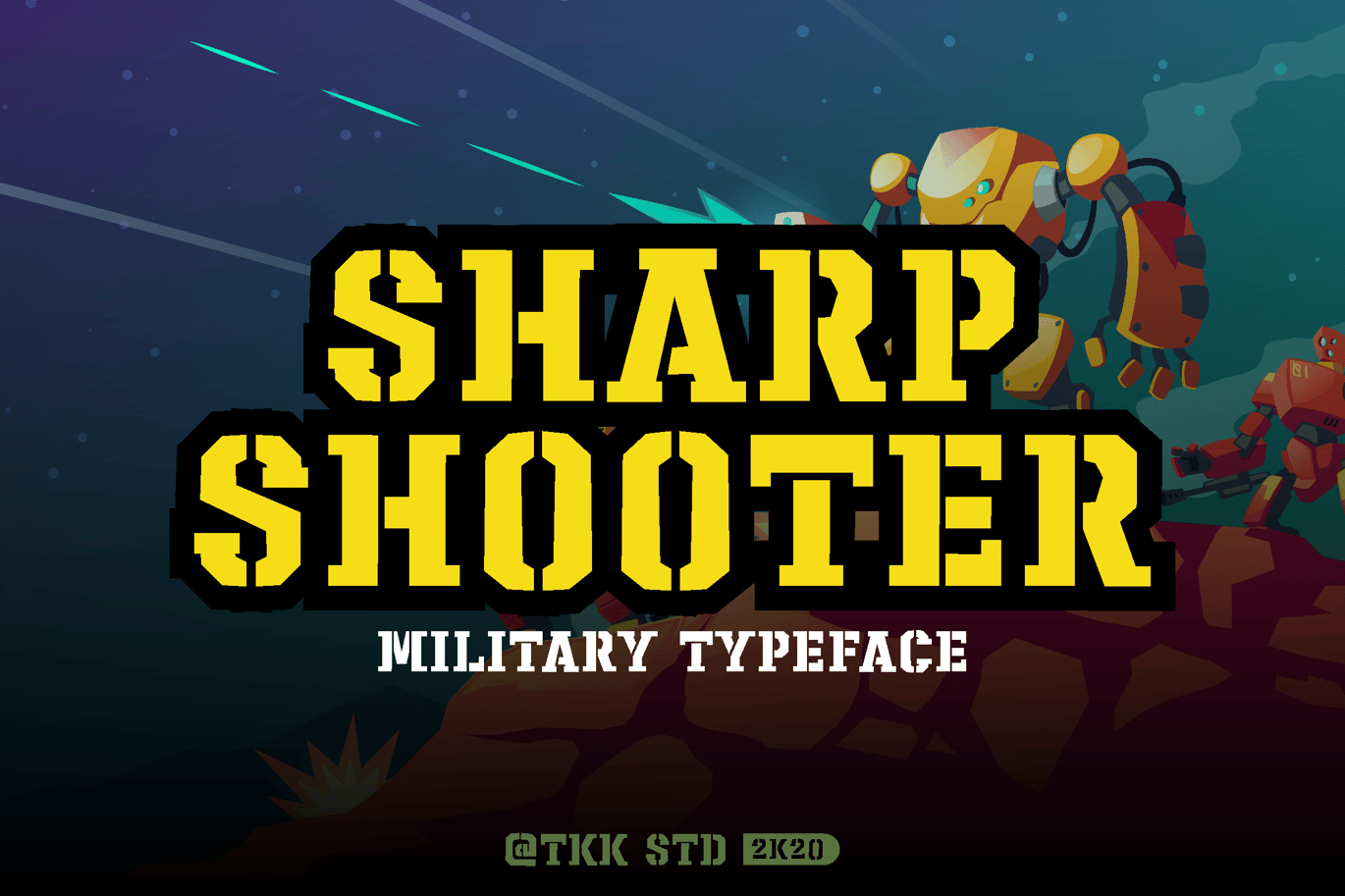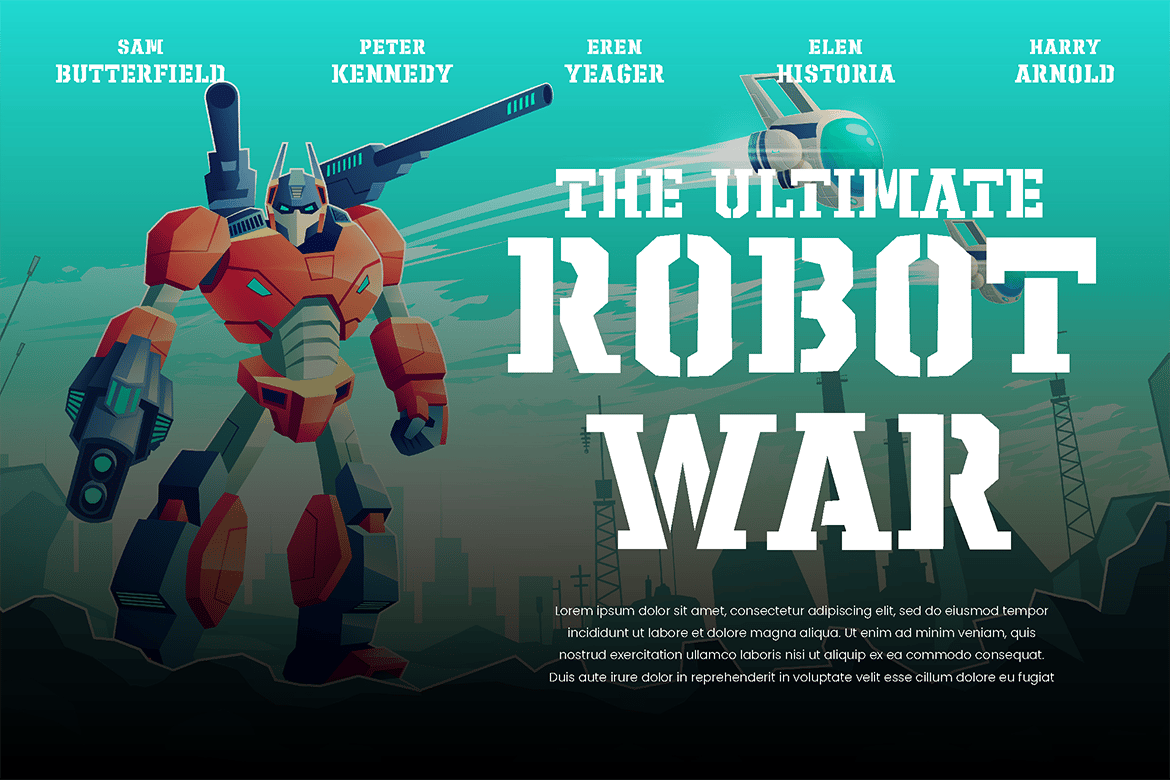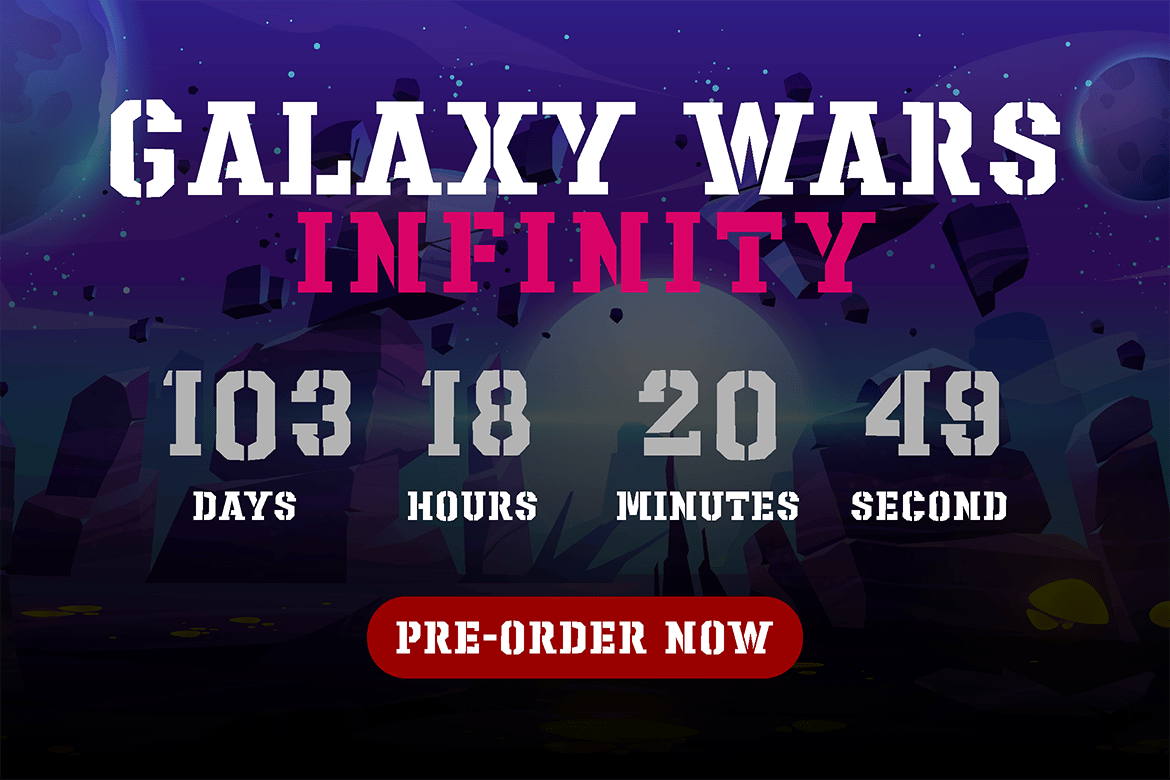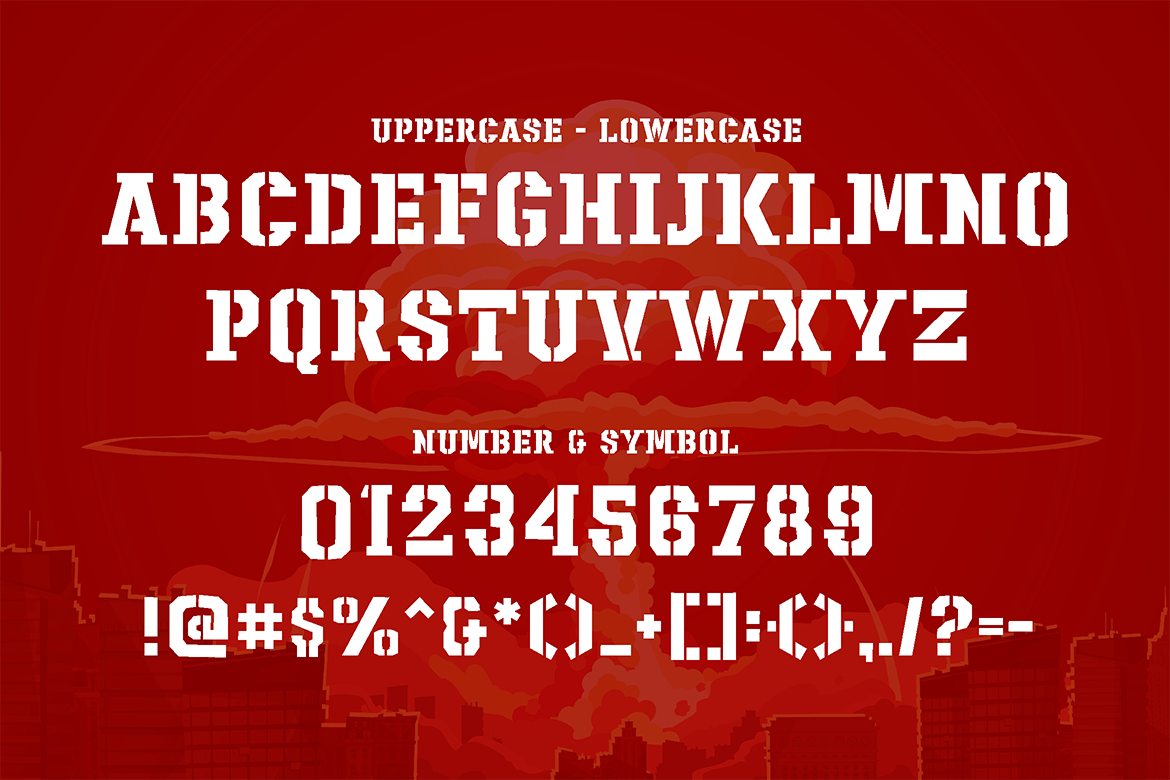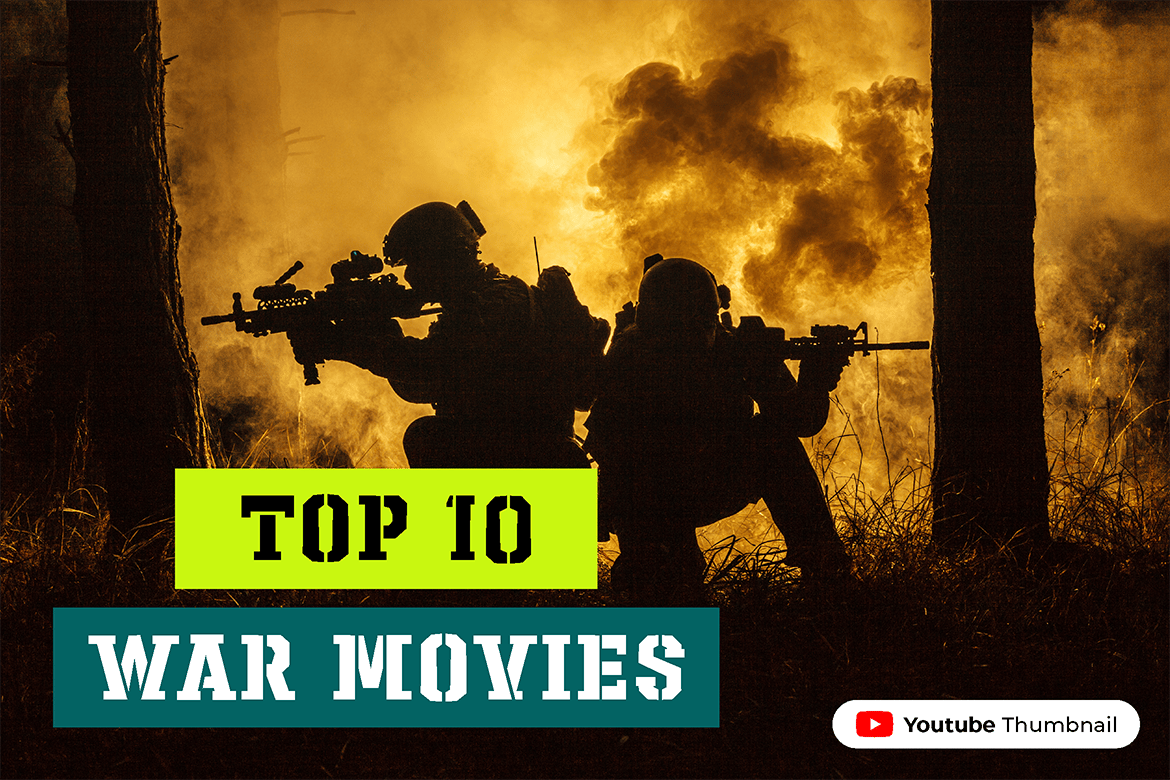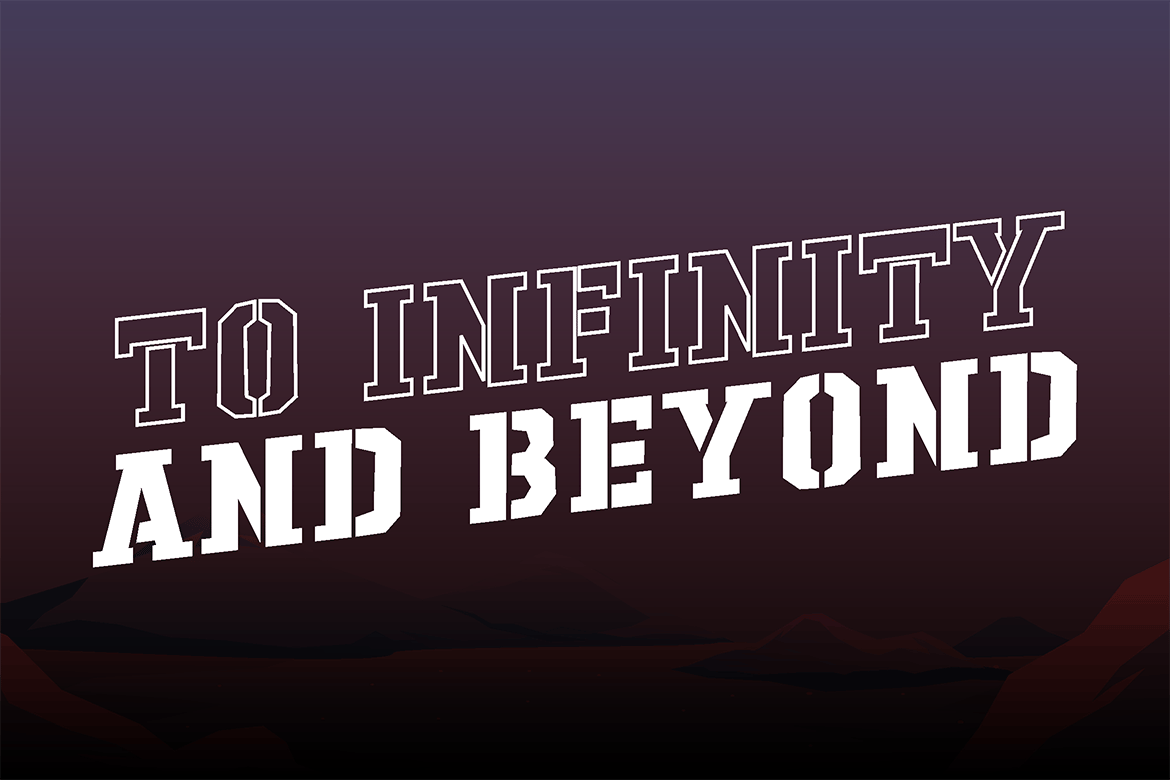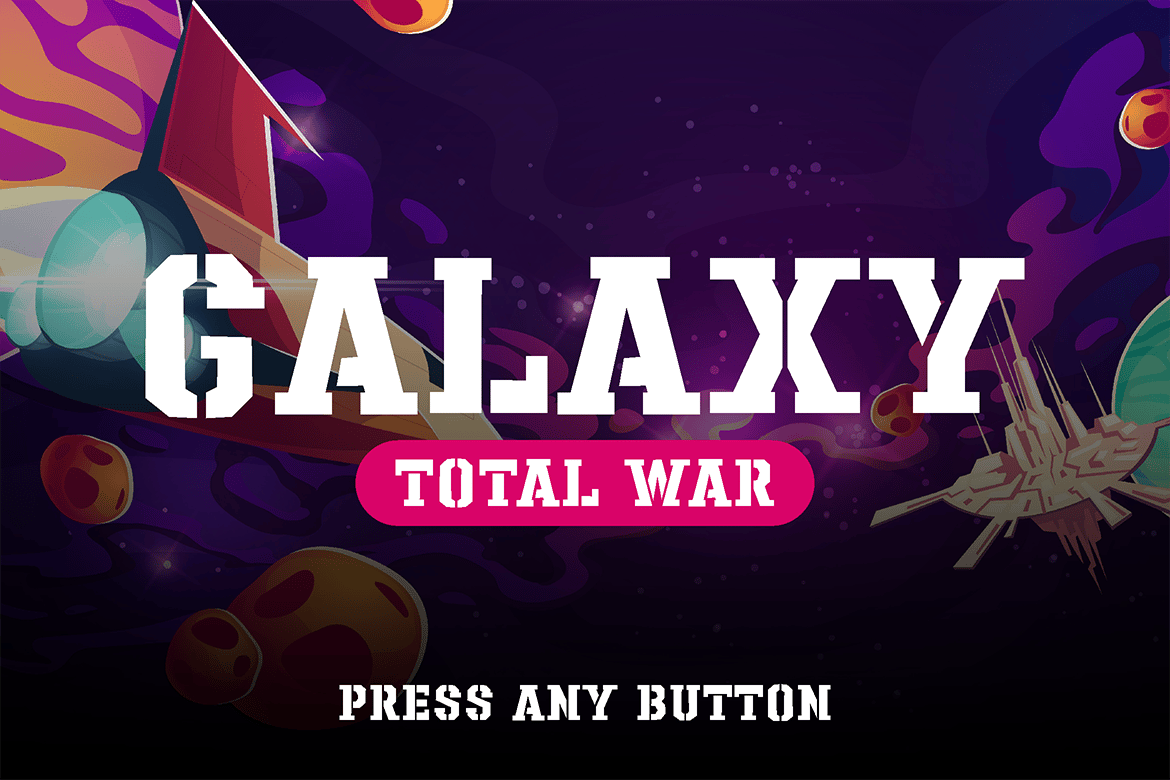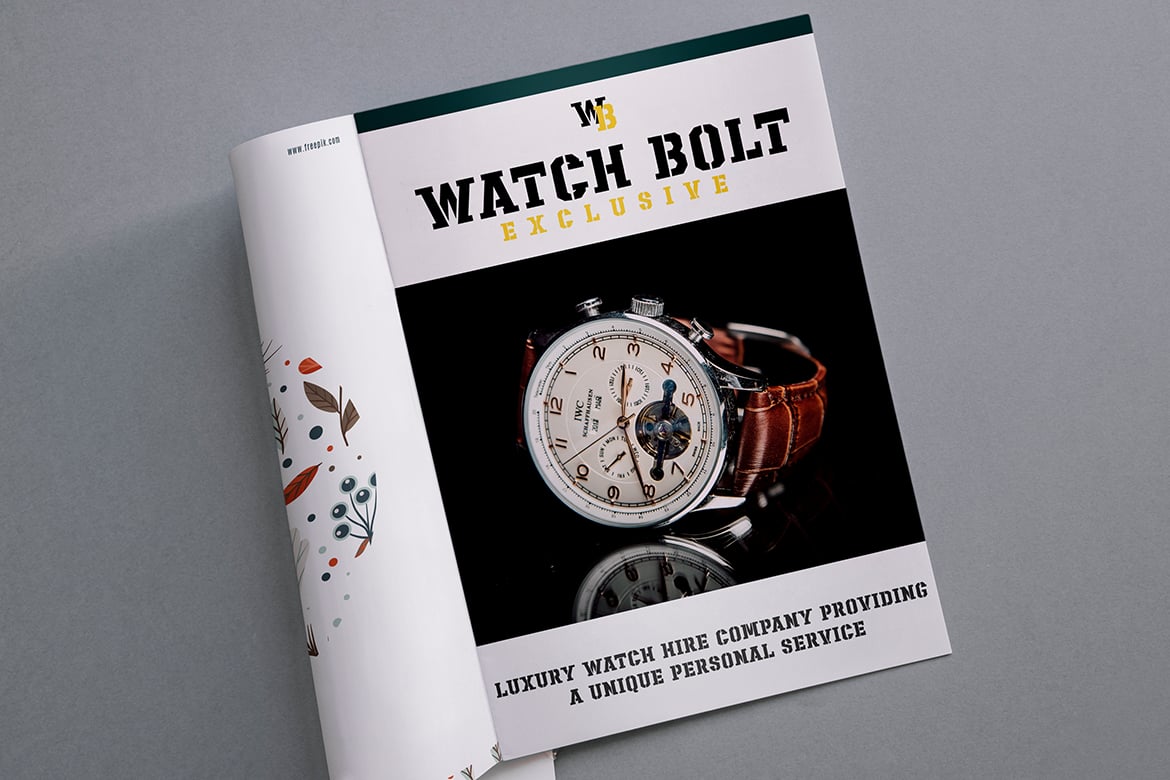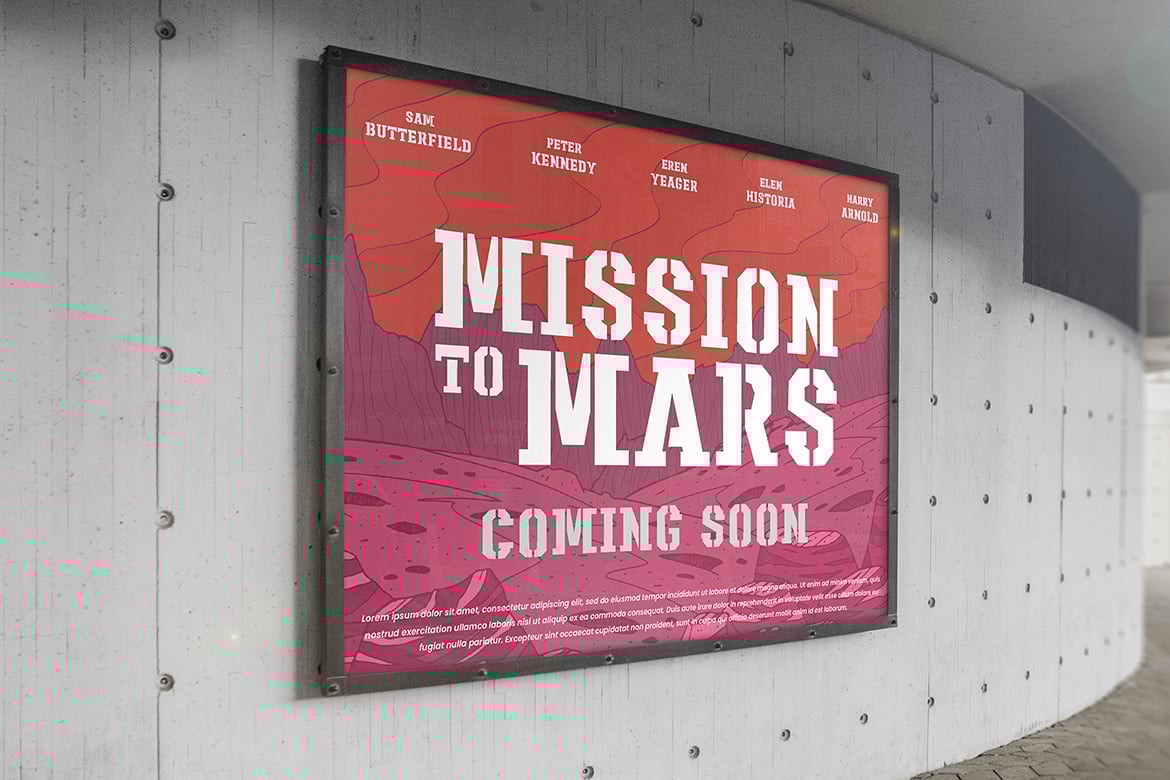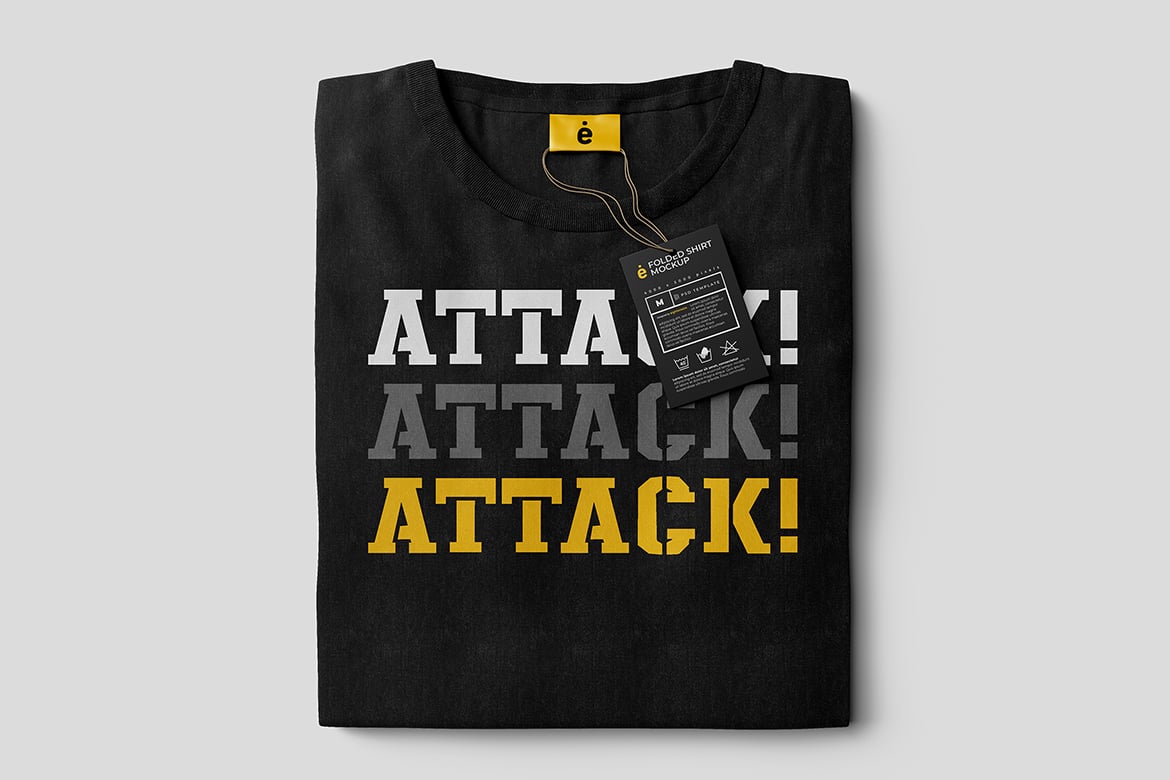
Sharpshooter – Stencil Army Font
Sharpshooter – military stencil font
A strong stencil cutout font that emphasize the military shape you took.
Sharpshooter took the serif style into the training, and becoming the best marksman in the field.